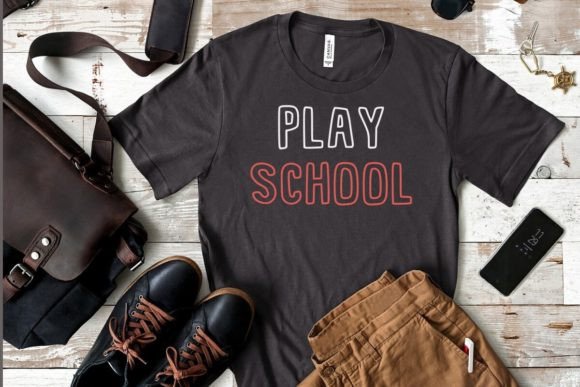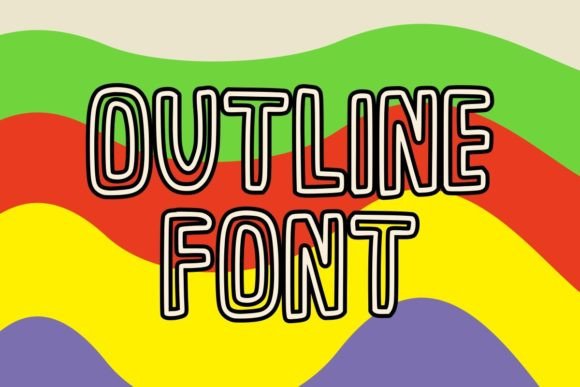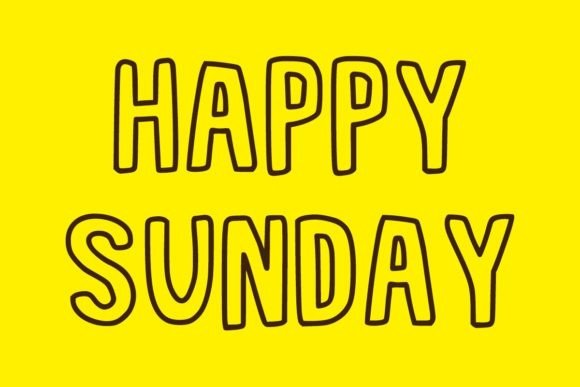
Comic Soon Font: A Playful Display Font for Cricut Crafts
About the Comic Soon Font
We are excited to introduce Comic Soon Font, a must-have typeface for any serious designer. Comic Soon is playful outline and adaptable display font. It is easy to read and conveys impeccable friendliness. Whether you’re using it for crafts, digital design, presentations, or making greeting cards, this font has the potential to become your favorite go-to font.
Comic Soon’s playful outline lends itself well to headlines, short taglines, and children’s book titles. It’s ideal for branding projects targeting a younger demographic or those emphasizing fun and approachability. Avoid using it for body text or longform content; its playful nature can become distracting at smaller sizes.
Pair it with a clean sans-serif like Open Sans for a balanced contrast, or a more geometric sans-serif such as Futura for a modern feel. A simple serif like Merriweather can add a touch of sophistication, grounding the playful energy of Comic Soon.
Its core personality is undeniably friendly and approachable, making it a great choice for projects needing a lighthearted and accessible tone.
Comic Soon Font Usage Examples
Comic Soon Font Example